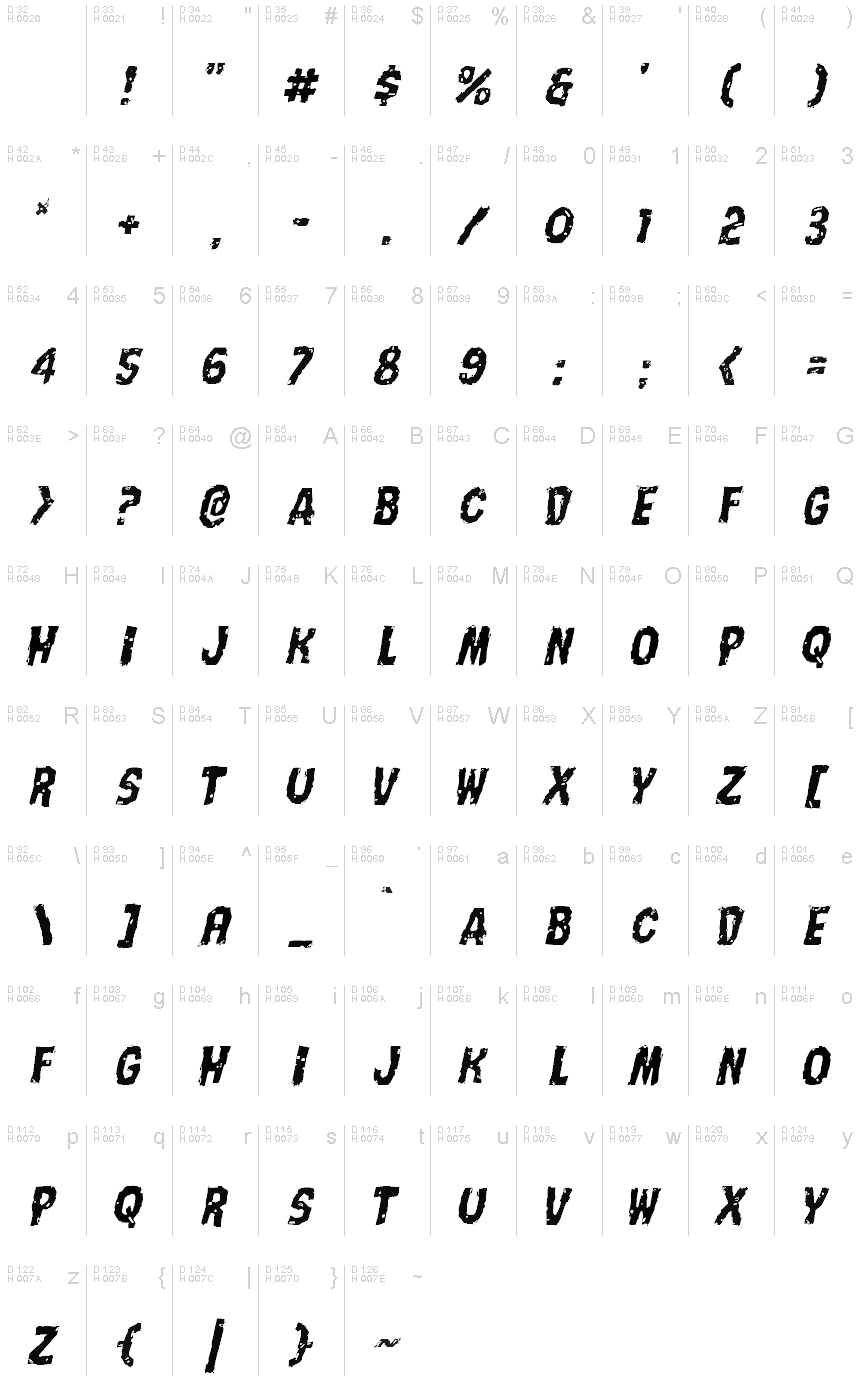
"Nightmare Alley Light Italic" is a captivating display font that exudes a chilling, yet alluring aesthetic. Crafted by Daniel Zadorozny, this condensed font boasts a bold, italicized silhouette that immediately commands attention. The jagged, nightmare-inspired letterforms seamlessly blend elegance and terror, creating a visual experience that is both unsettling and mesmerizing.
This font's versatility shines in its ability to elevate a wide range of design projects, from horror-themed branding and editorial layouts to haunting book covers and movie posters. Its striking visual impact makes it a perfect choice for designers seeking to evoke a sense of unease, mystery, or the macabre in their work.